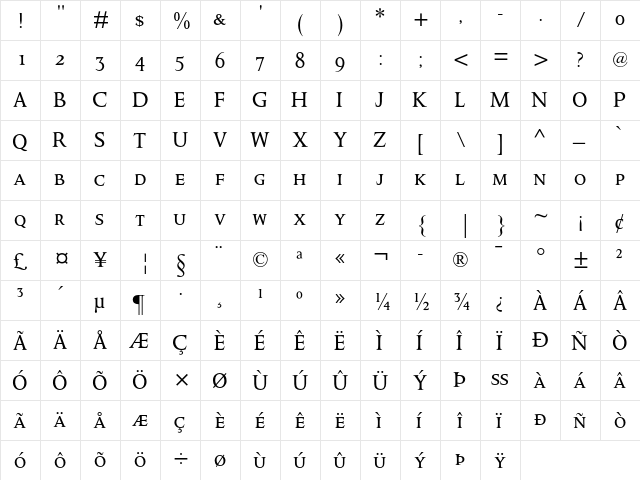
Octavian MT SC
Design Context for Octavian MT Typeface
Octavian MT offers clean, dependable letterforms without strong stylistic allegiance, making it a practical choice for designers who need flexibility.
Pro Tip: Use Octavian MT in both headline and body roles to test its range before committing to a single application.